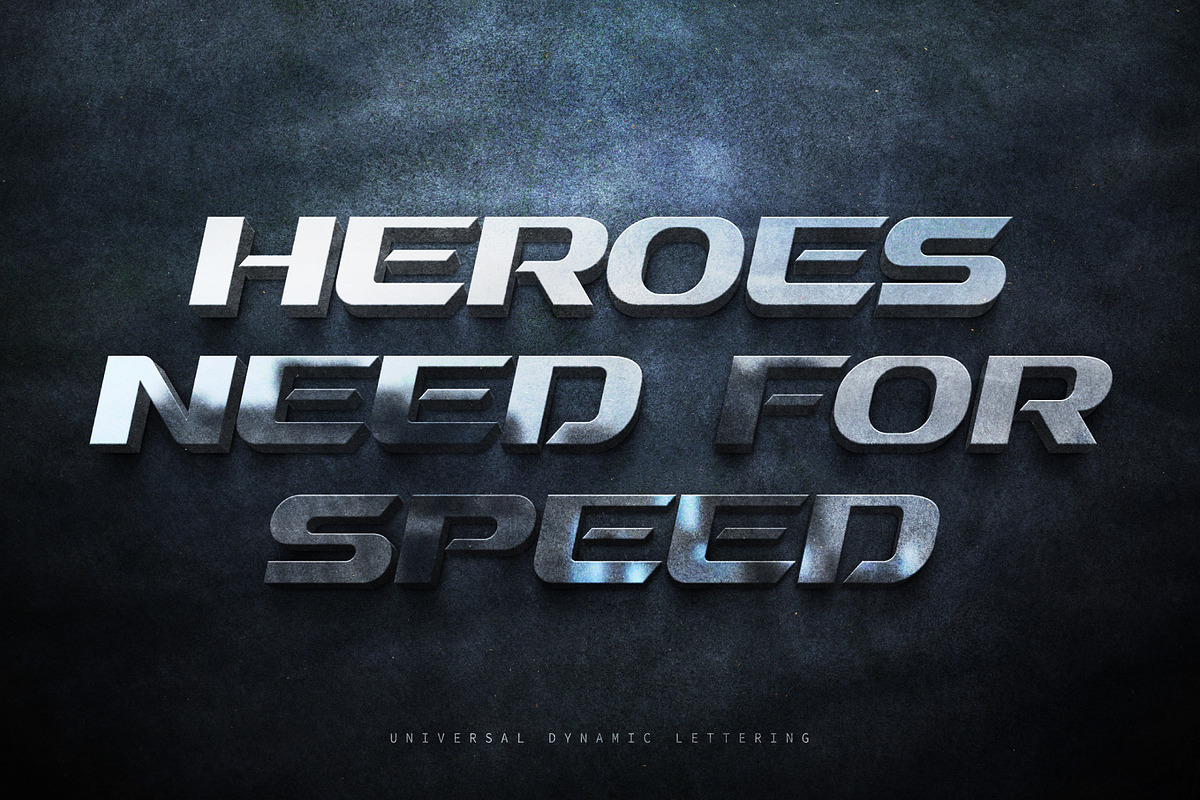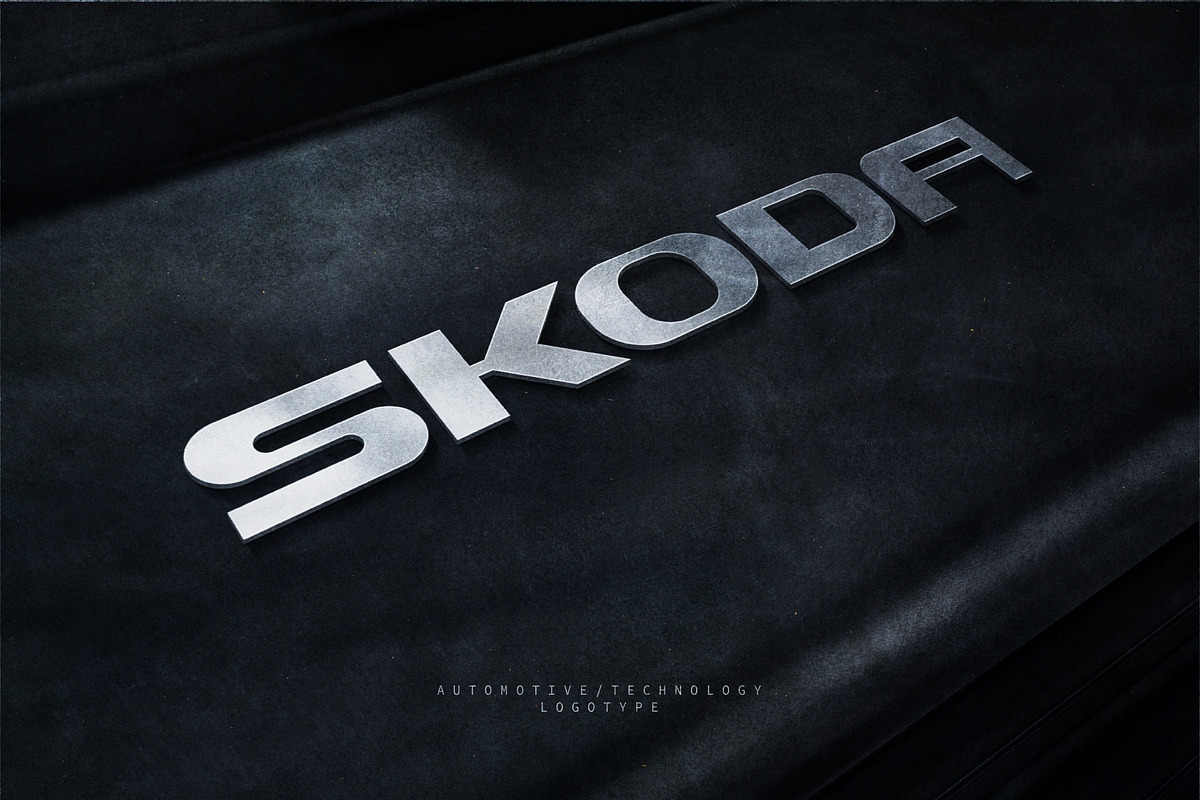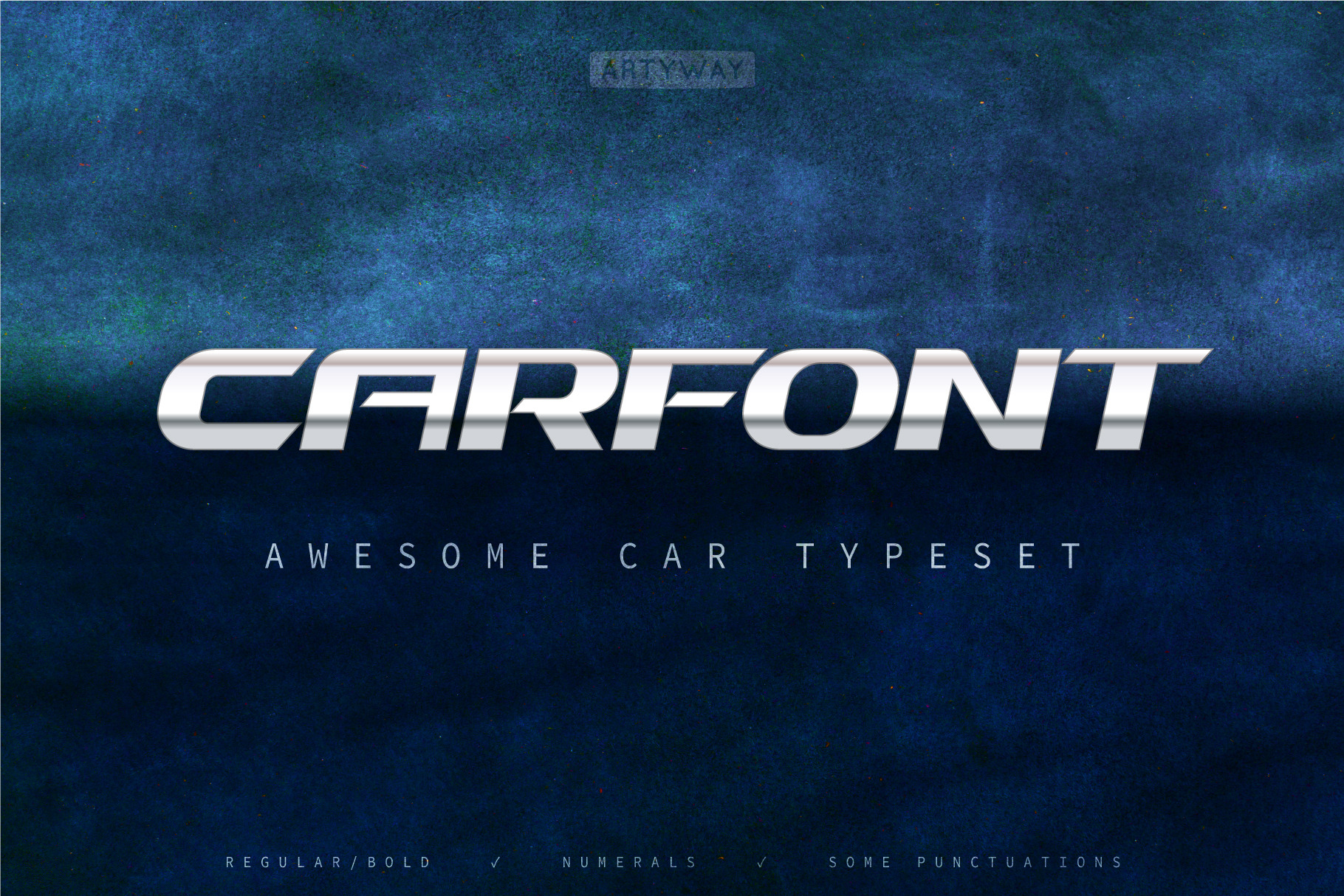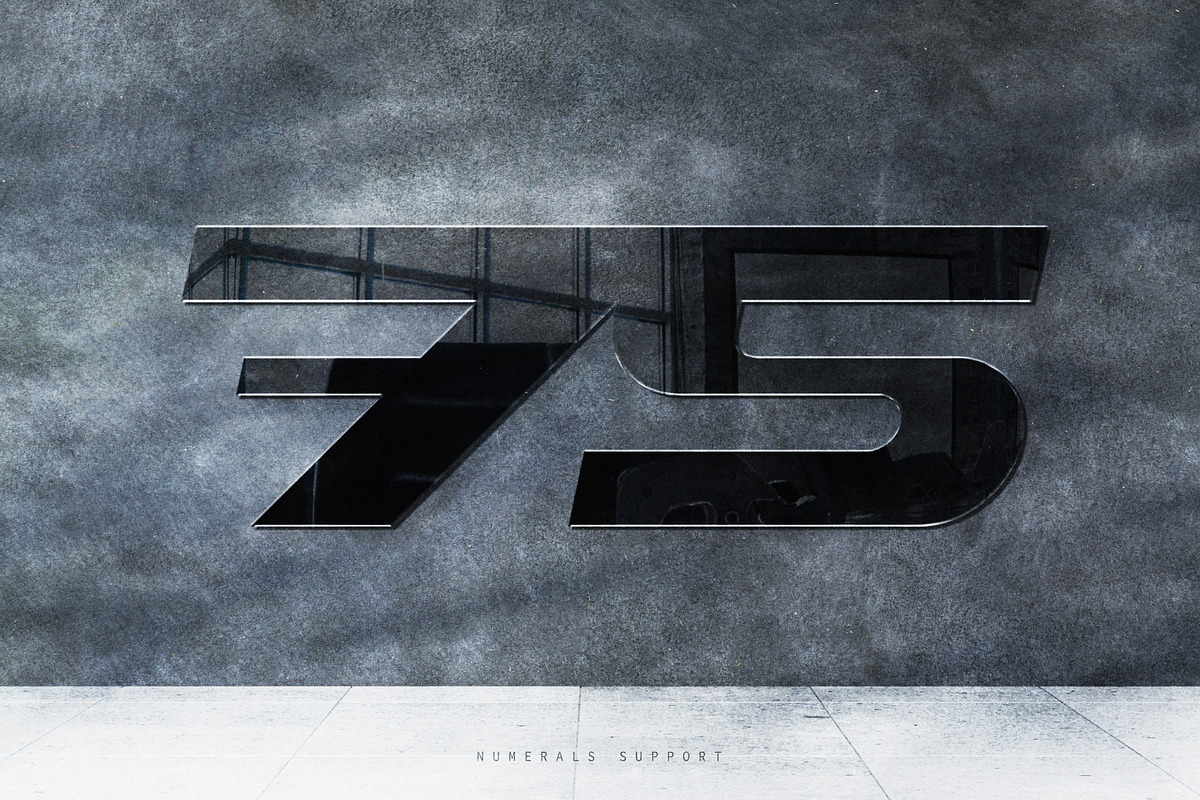
Car Headline Font
I suggest you to pay attention to the "Carfont" font.
Powerful and humanistic, dynamic and confident, all this is in the character of a modern typeset Carfont. He easily holds attention and inspires respect. Stylish and universal it is designed for automotive, this gem will look even more stunning when paired with metallic gradient colors that highlight its masculinity. And looks awesome in technological and innovative products.